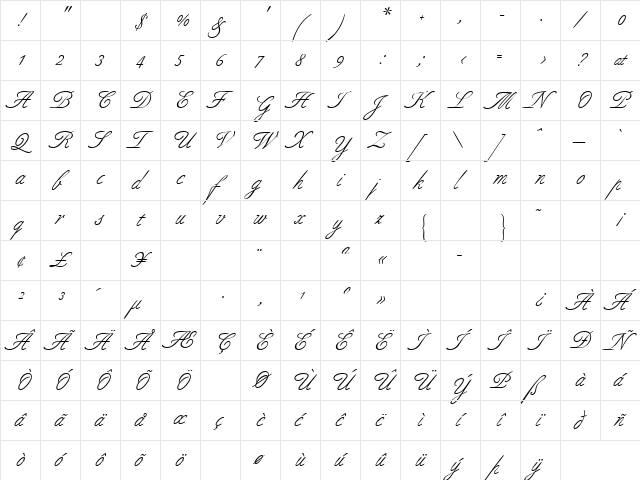
GE Alluring Regular
Design Context for GE Alluring Typeface
GE Alluring is a composed and adaptable typeface that performs quietly and consistently across a wide range of design contexts.